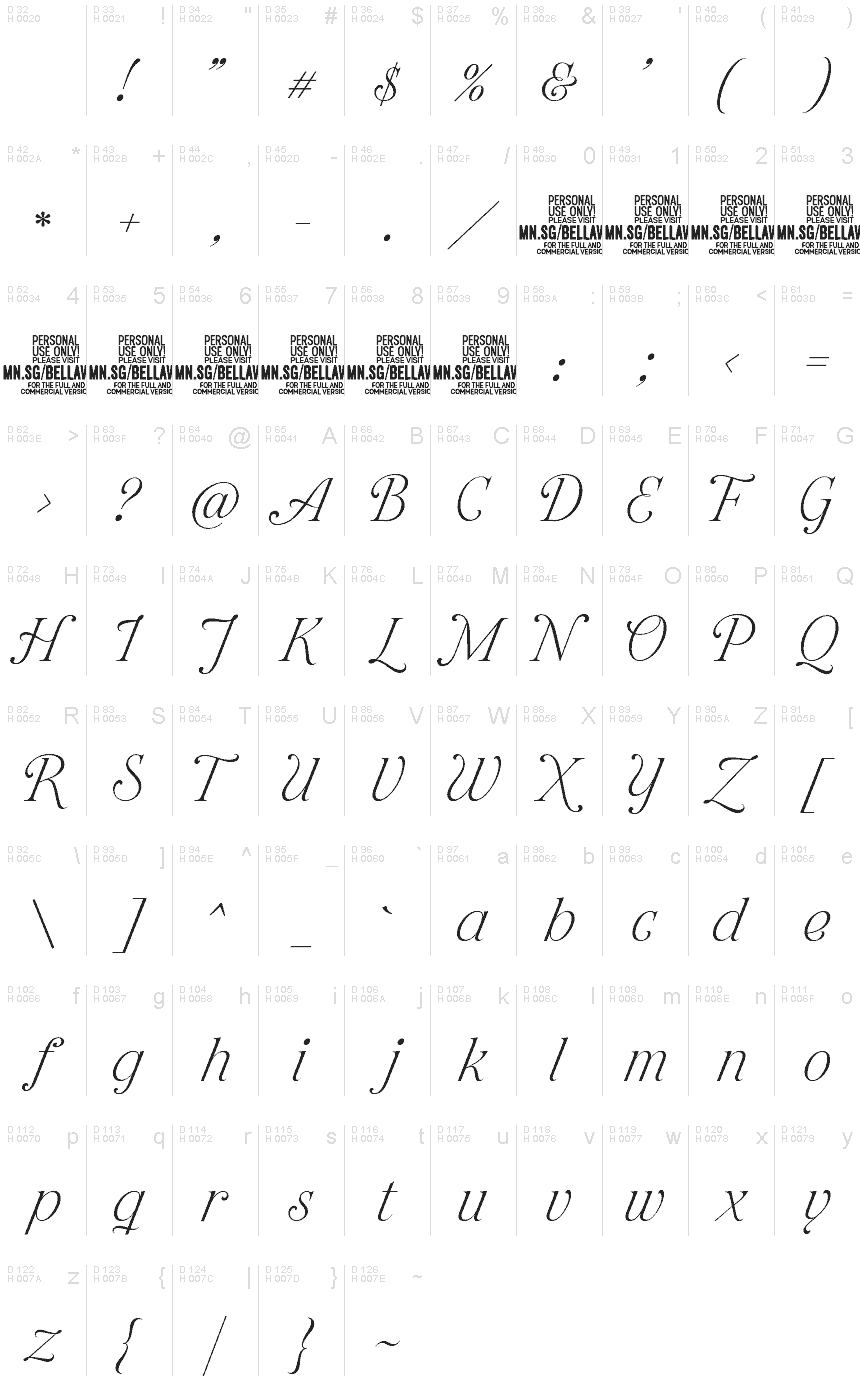
Bellavoir Delight PERSONAL USE Regular
Bellavoir Delight font designed by Måns Grebäck is an elegant serif font family with sophistication. Neo-classical yet slightly modern, it showcases prim letterforms built to complement text across your project’s surface. With a light structure, the body of the free serif font can create a stylish headline with precision.
Integrate Bellavoir Delight into book headlines, body texts, invitations, premium product labels, website headers, magazines covers and titles, posters and advertisements. It is perfect for applications that require an elegant touch of classic calligraphy paired with decorative flair.